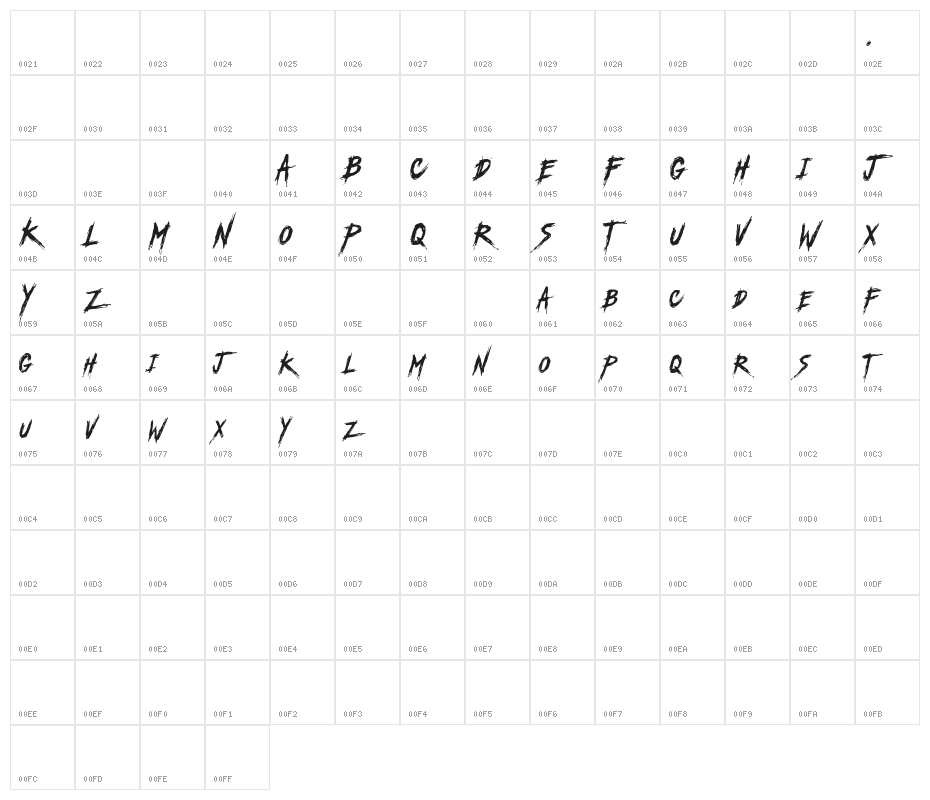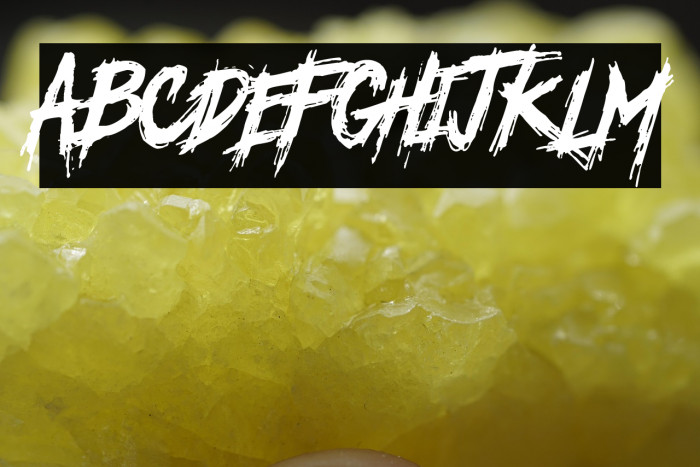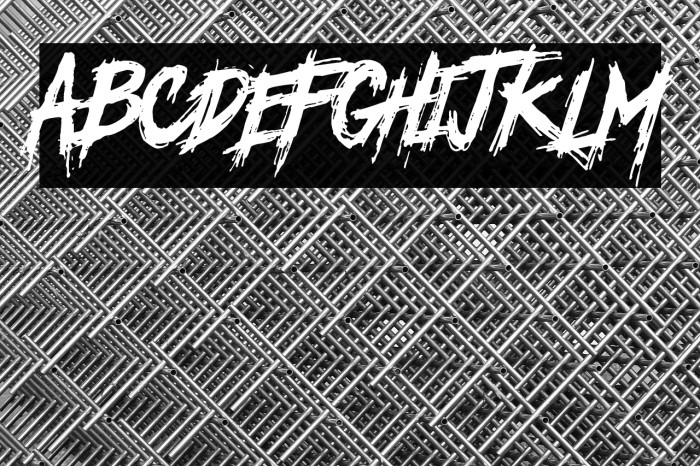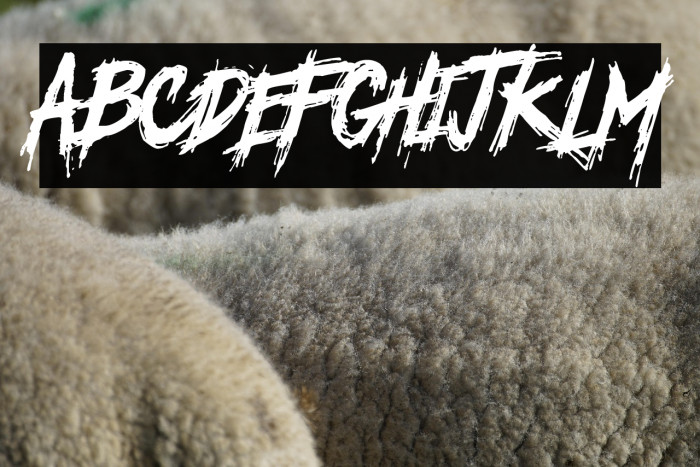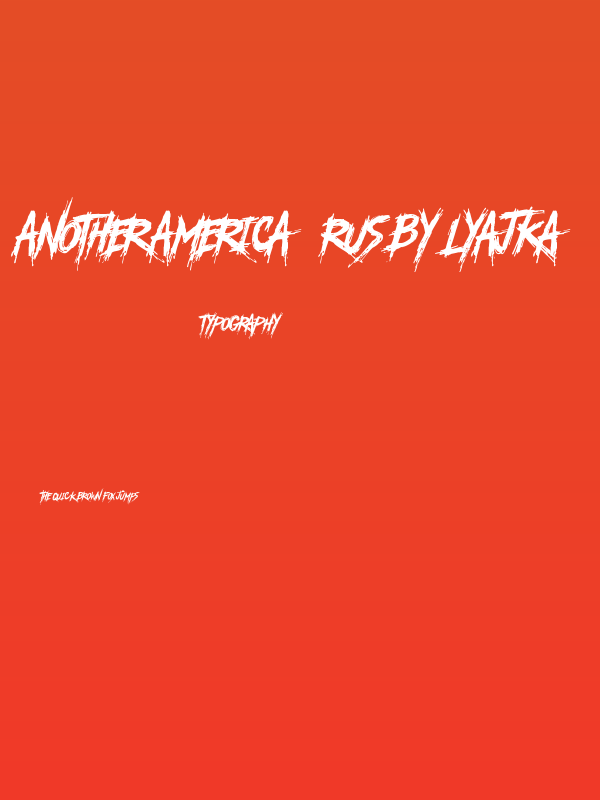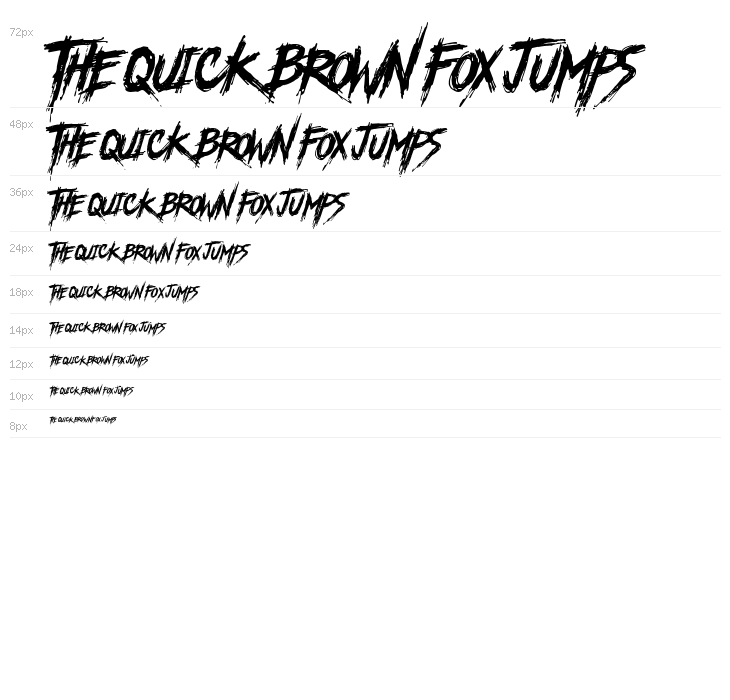
Another America(RUS BY LYAJKA) Font
Another America(RUS BY LYAJKA) Description
This font features a bold, edgy style with a distressed, grunge appearance. The letters are jagged and irregular, giving it a raw and energetic feel. The strokes are thick and uneven, creating a sense of movement and chaos. This font is highly decorative and makes a strong visual impact, ideal for designs that require a rebellious or unconventional look. The uppercase and lowercase letters maintain a consistent style, with sharp angles and rough edges that enhance its dynamic character.
Overall StyleGrunge, Edgy, Energetic
Proposed ProjectsIdeal for music album covers, posters, streetwear branding, and edgy graphic designs.